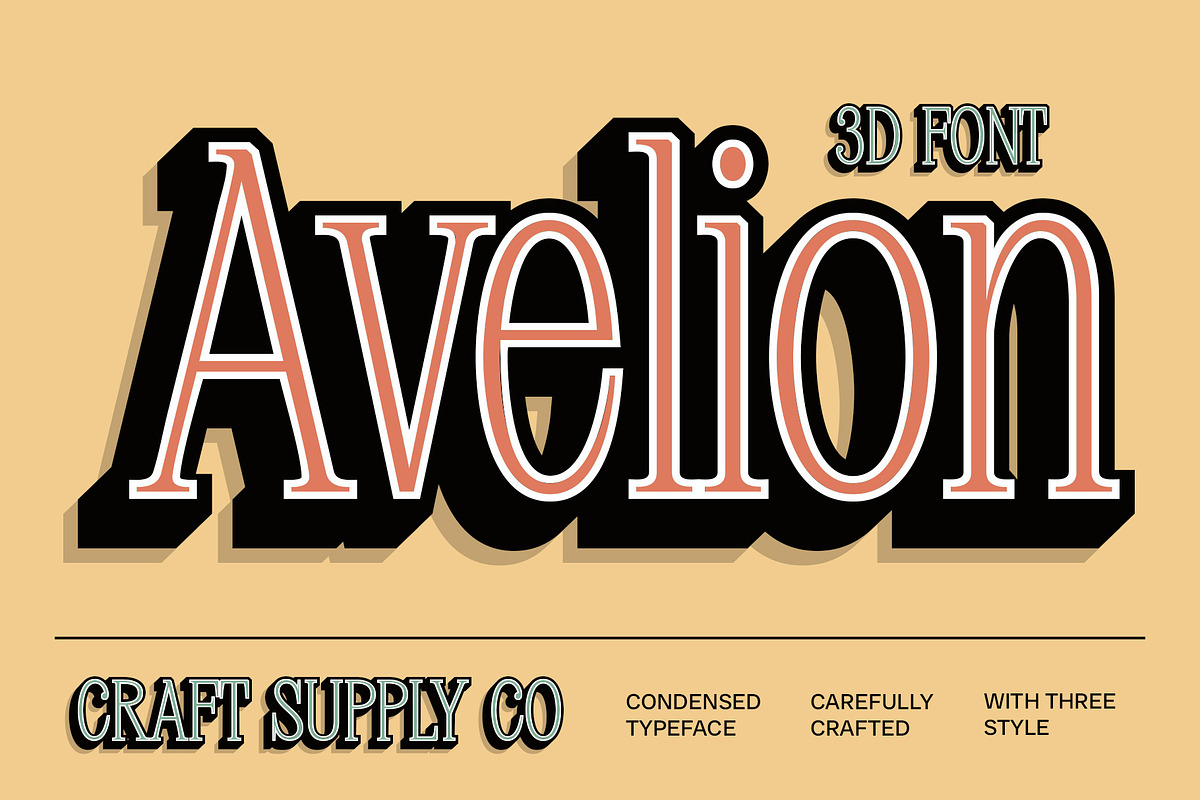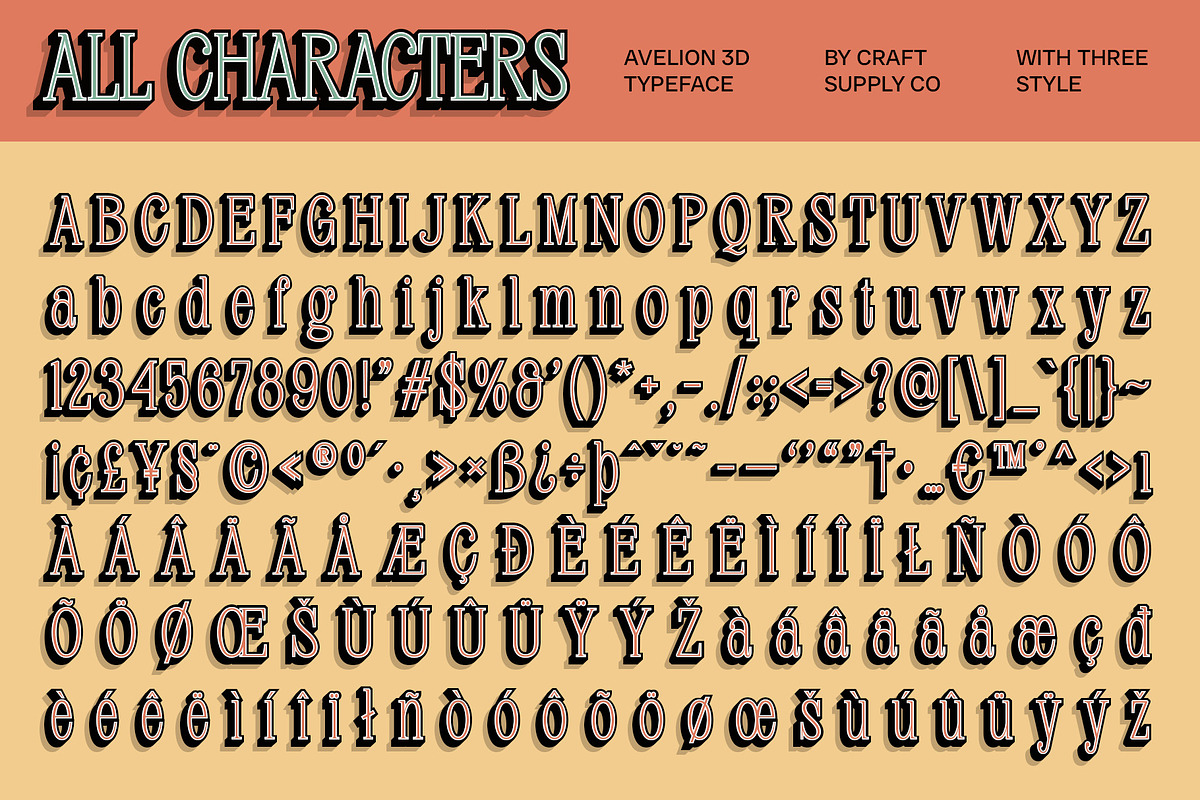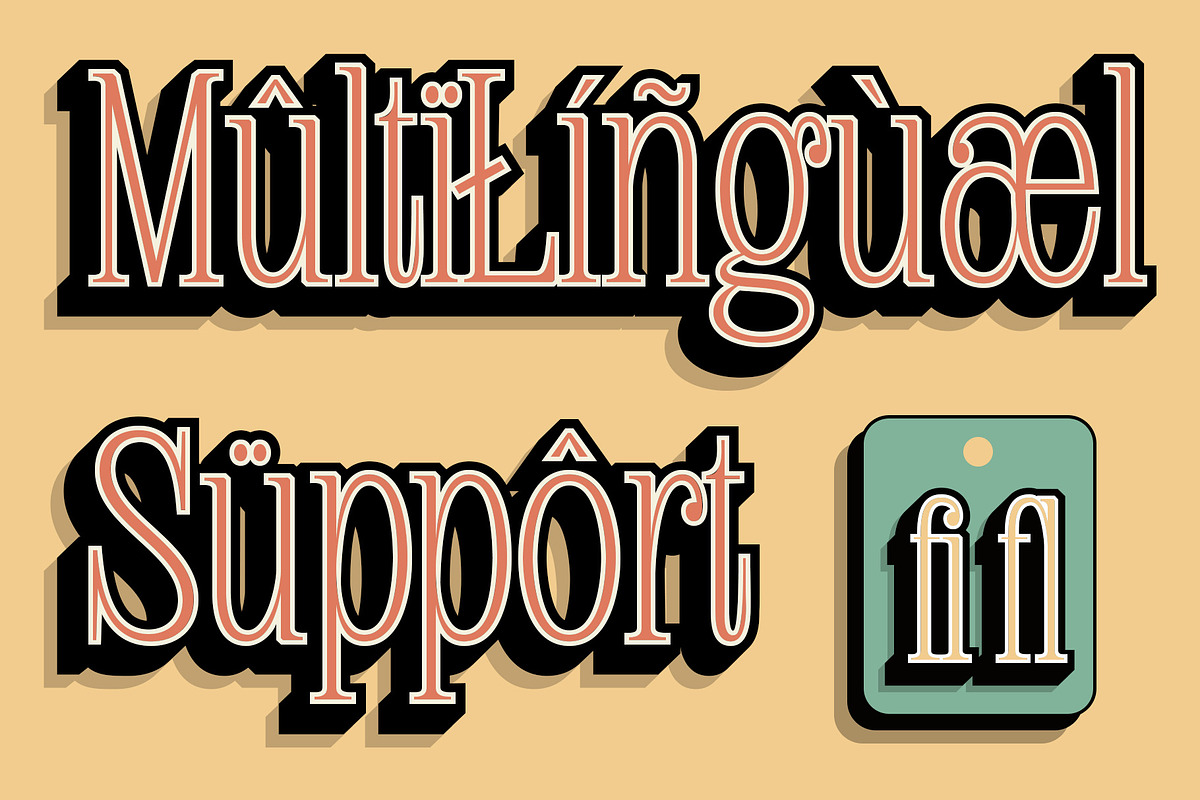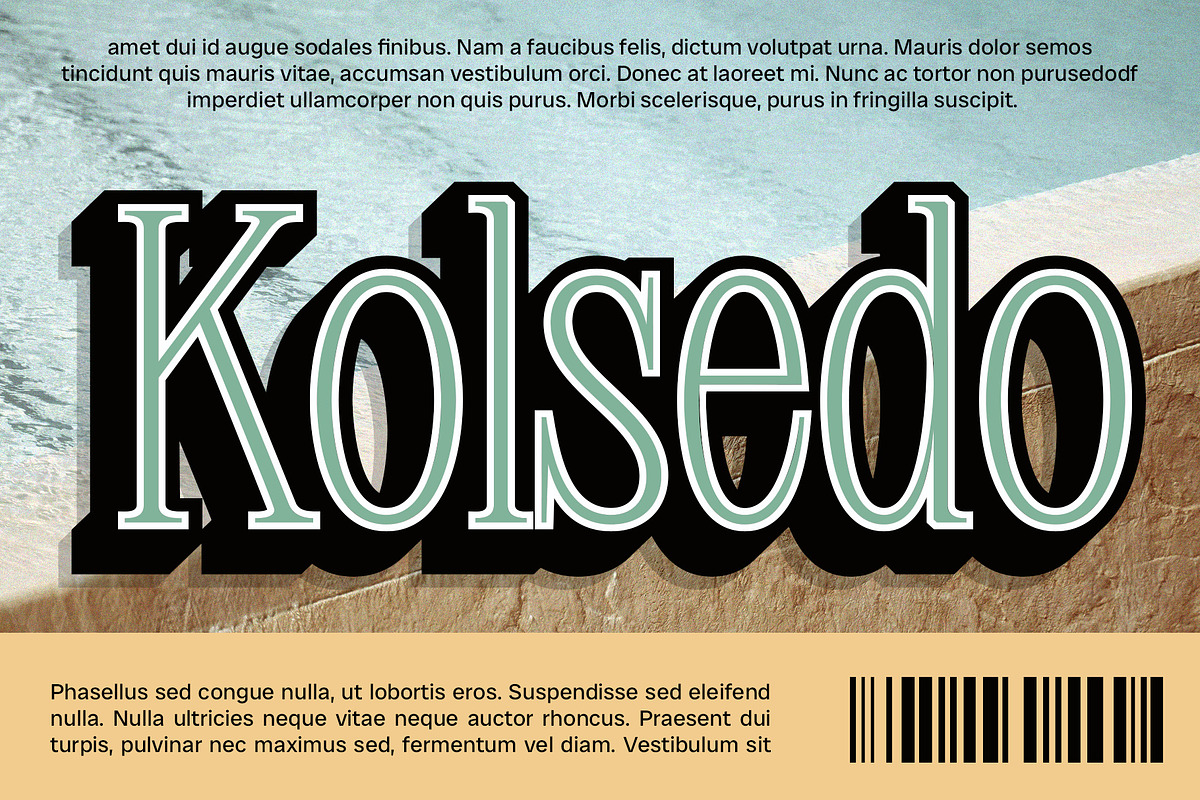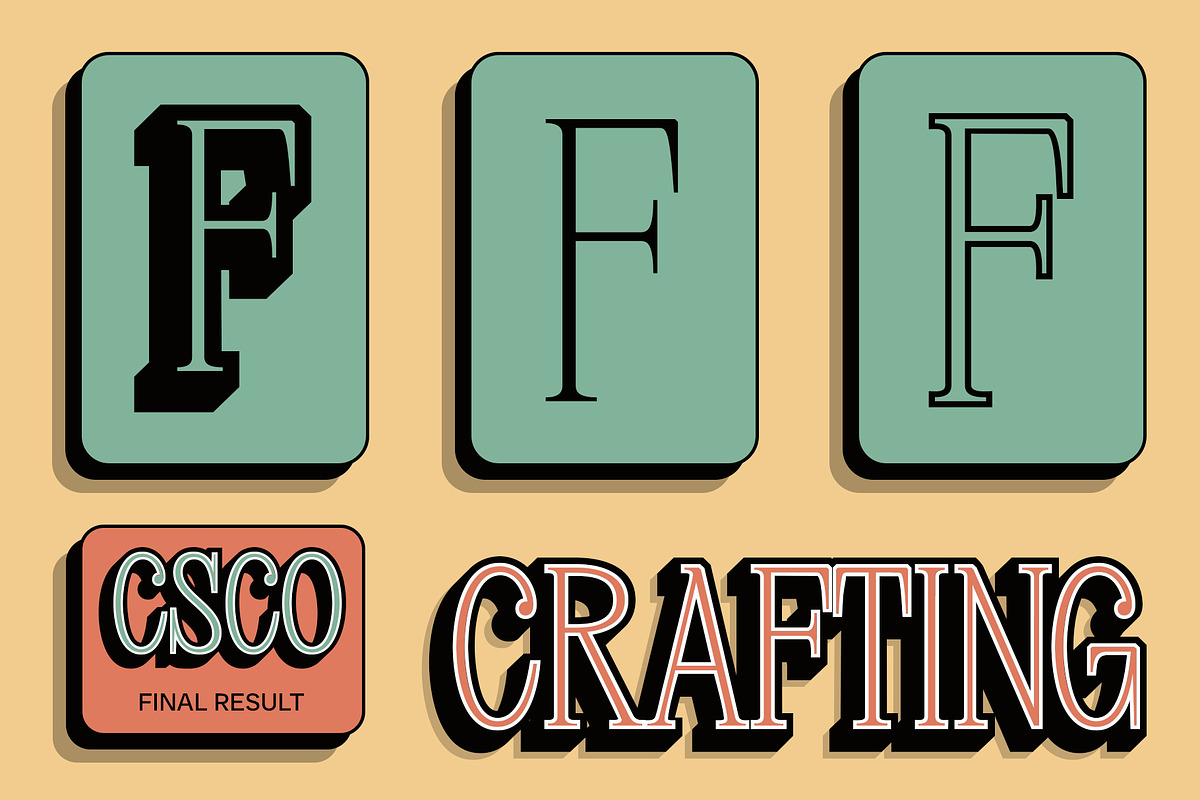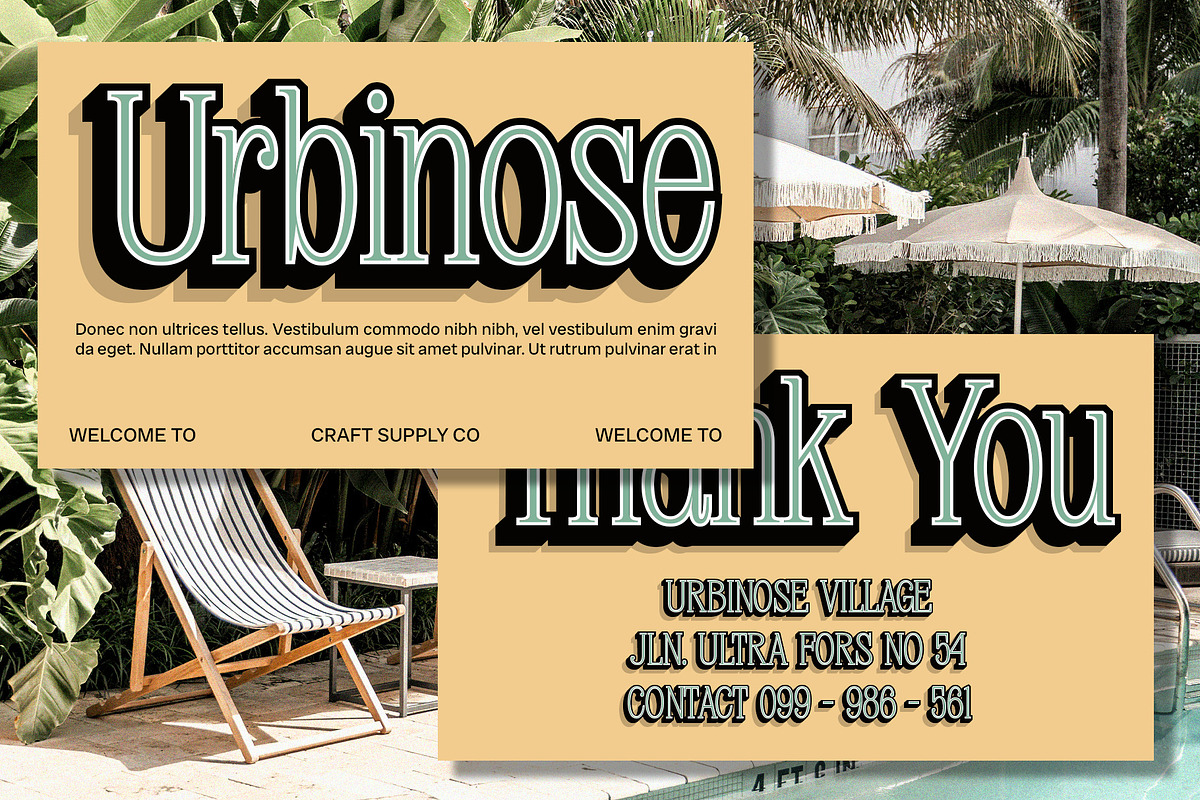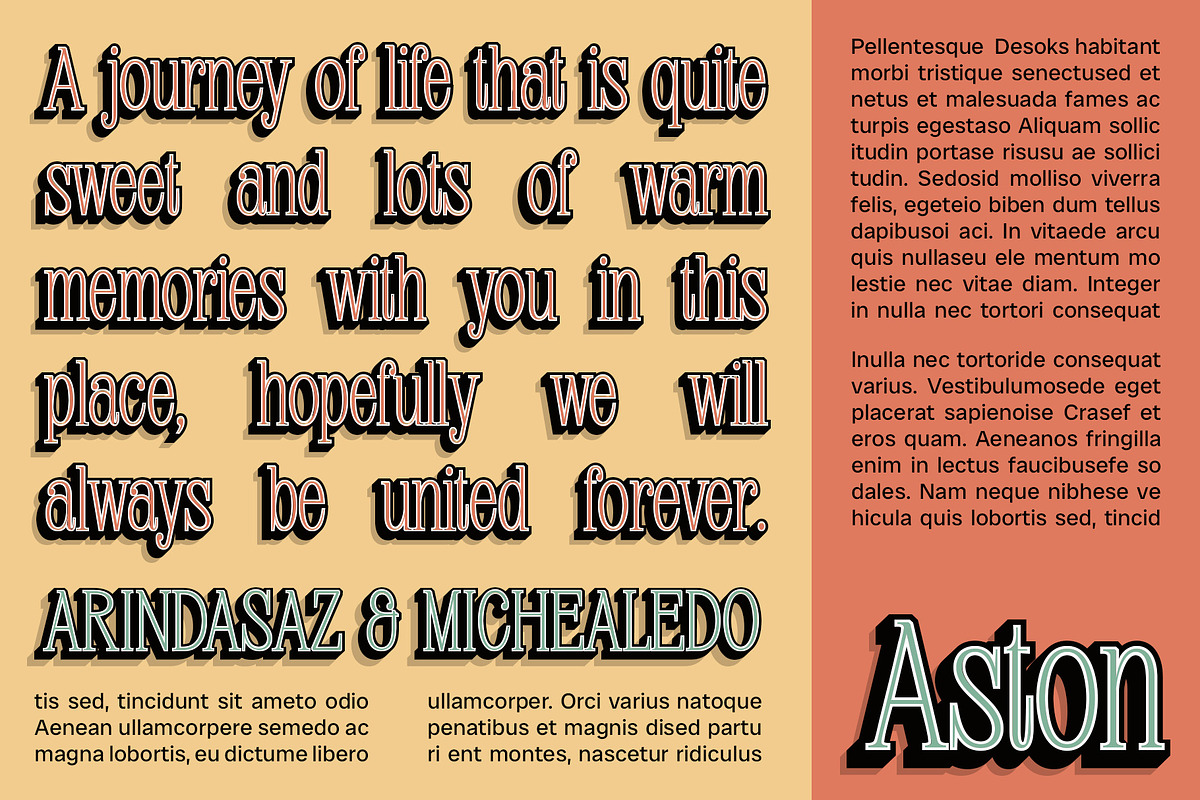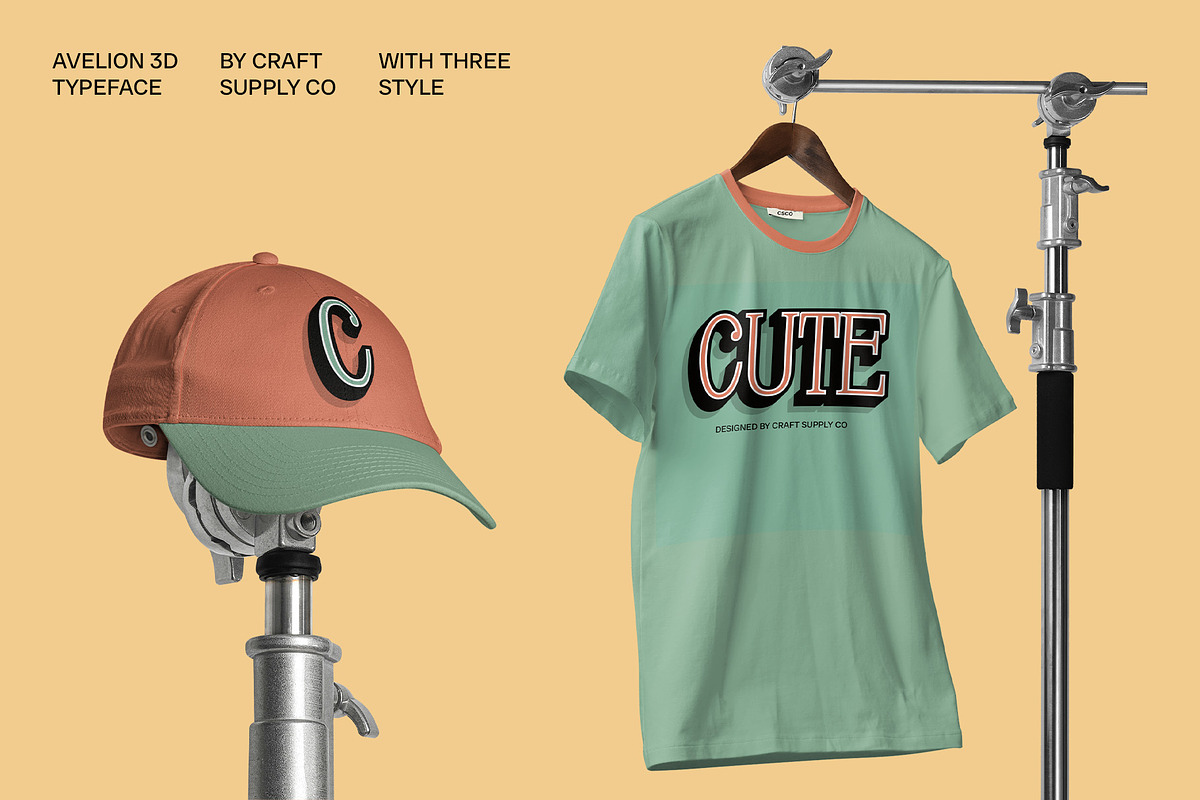
Avelion 3D
Avelion 3D Font: Modern Condensed Serif Font with 3D Effect
Sleek and Minimalist Design Avelion 3D is a modern condensed serif font that embodies sleekness and minimalism. Its slim, elegant letterforms provide a refined look, ideal for contemporary design projects that require a sophisticated and polished appearance.
Refined 3D Effect for Added Depth The 3D effect in Avelion adds a subtle yet impactful dimension to the font’s minimalist design. This refined depth enhances visual interest without overwhelming the clean, streamlined aesthetic, making it perfect for modern branding and editorial work.
Perfect for Sophisticated Branding Avelion 3D’s elegant and understated design makes it an excellent choice for sophisticated branding. Whether used in logos, packaging, or promotional materials, this font delivers a classy and professional look that resonates with modern, high-end aesthetics.
Contemporary Elegance with a Modern Twist Combining modern design with a 3D twist, Avelion 3D brings a fresh, contemporary edge to your projects. Its sleek and minimalistic style, enhanced by the 3D effect, ensures your designs stand out with a touch of depth and class.
- Avelion Regular
- Avelion Outline
- Avelion Extrude Right
- Avelion Extrude Left